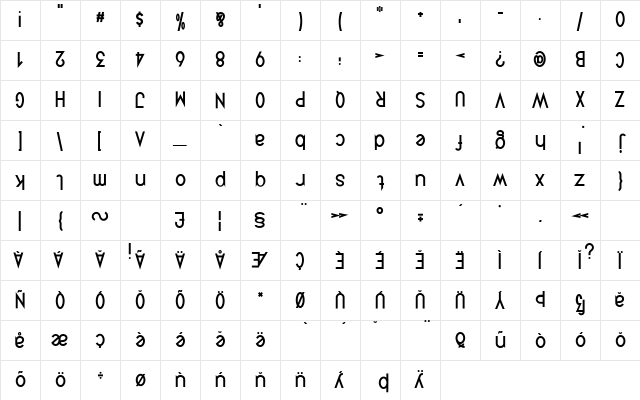
Complete Quirkus Upside Down Regular glyph index. Displaying only characters natively supported by Quirkus Upside Down Regular font.
Quirkus Upside Down is a composed and adaptable typeface that performs quietly and consistently across a wide range of design contexts.